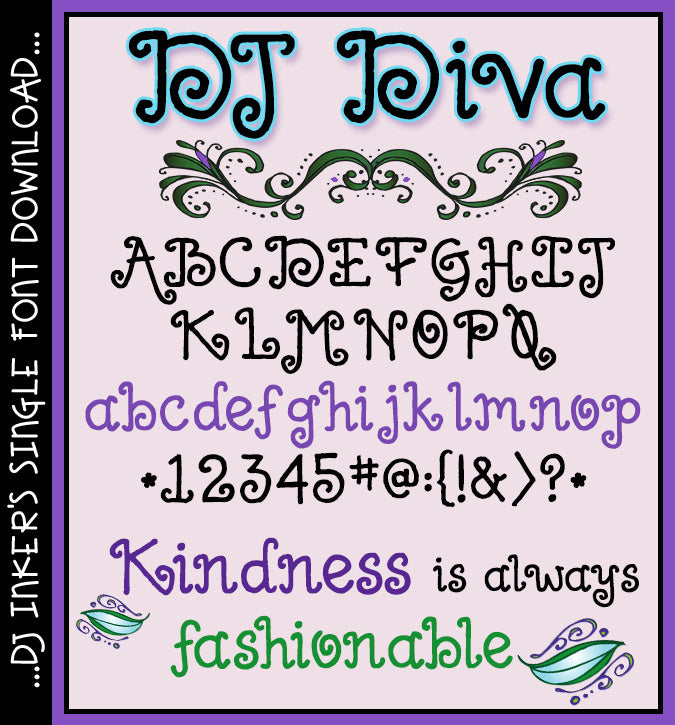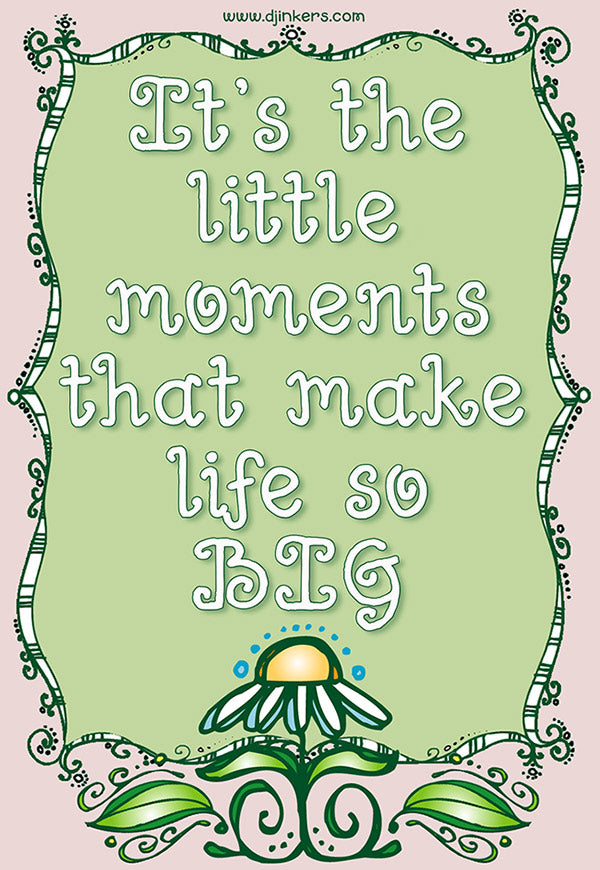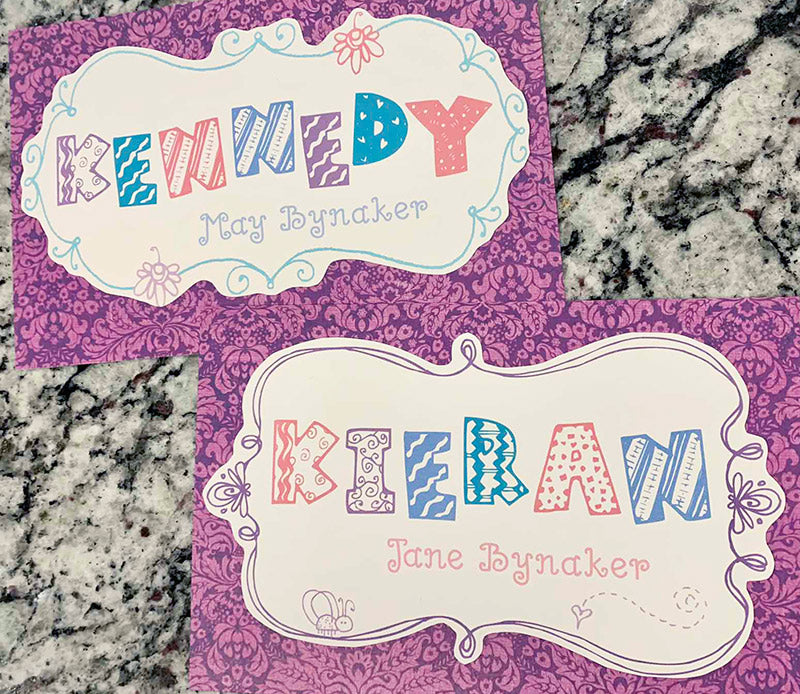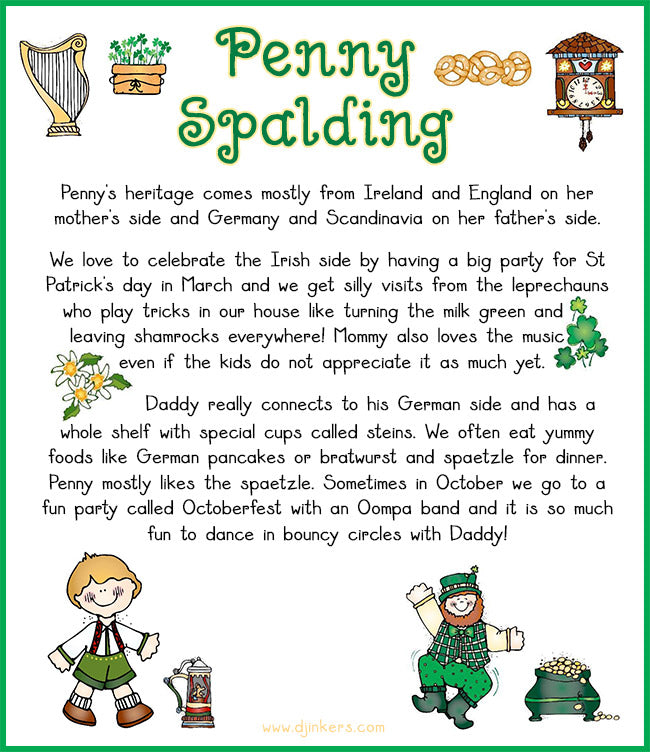
DJ Diva Font Download
This sassy, swirly font lives up to it's name! DJ Diva will
be perfect for dazzling headlines, fabulous events and delightful correspondence.
Hand drawn with flair & style by Dianne J Hook. (djdf181)